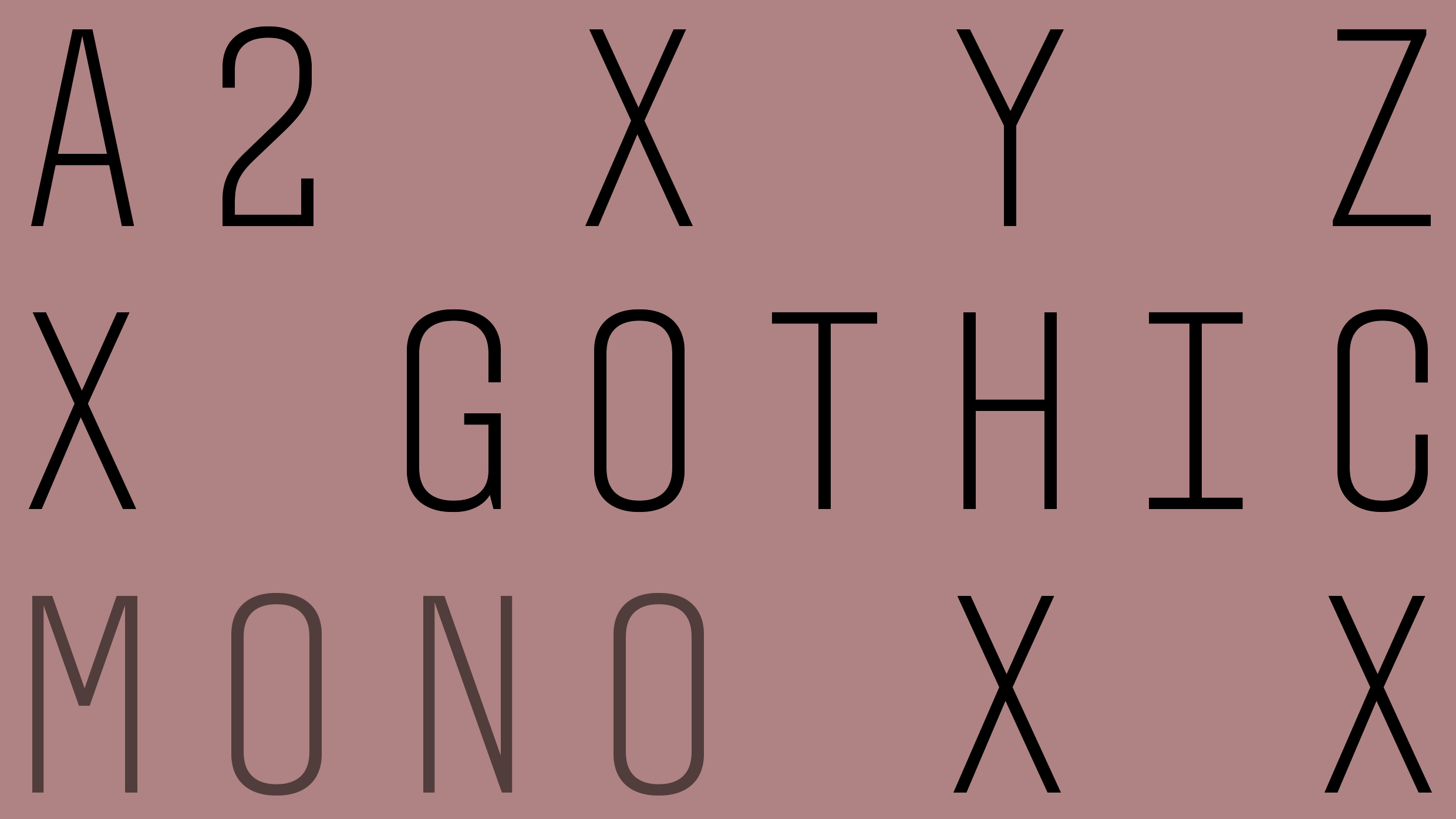
A2 Gothic Mono Thin
A2 Gothic Mono is based on an early Grotesk font we designed for our original letterhead in early 2000. This font is part of the A2 Gothic font family (A2 Gothic Condensed and A2 Gothic X Condensed). Part of the system was recently customised for special use by CNN online. The single thin style Mono font adds to the extensive palette of fonts and works especially well in large point sizes.
| Font name: | A2 Gothic Mono |
| Font category: | Sans |
| Manufacturer: | A2-TYPE |
| Designer: | Henrik Kubel |